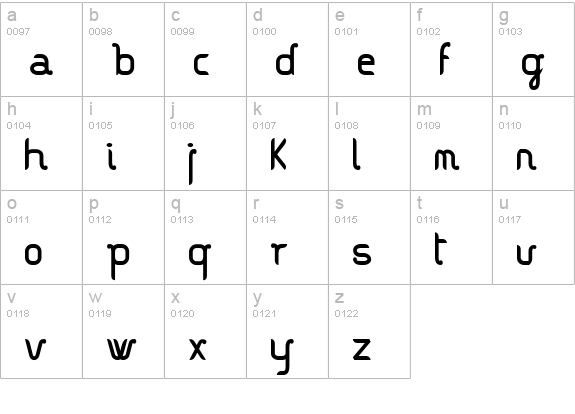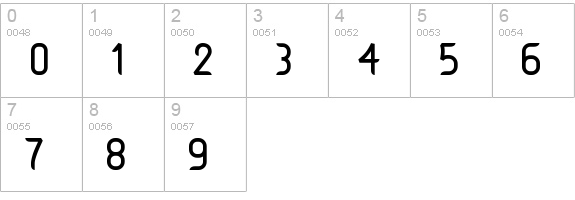
Vague Font Details
Introducing Vague font, a stunningly versatile typeface that effortlessly blends the elements of modern sophistication with a touch of timeless elegance. This font is designed to captivate and inspire, making it the perfect choice for a wide range of creative projects. With its clean lines and sleek curves, Vague font exudes a sense of refined simplicity that is both visually appealing and easy to read. Whether used for a logo, branding materials, website design, or even print publications, this font is guaranteed to make a lasting impression. But what truly sets Vague font apart is its incredible versatility. It seamlessly adapts to any design concept, effortlessly elevating the aesthetic appeal and enhancing the overall impact. From bold headlines to delicate body text, this font showcases its adaptability with grace and finesse. And the best part? Vague font is absolutely free! Yes, you read that right. This exceptional typeface is freely available to download at FontsMarket.com, allowing designers and enthusiasts alike to unleash their creativity without any constraints. So why wait? Embrace the beauty and versatility of Vague font and let your designs shine with its timeless charm. Download it for free today and experience the limitless possibilities that this remarkable font brings to your creative endeavors.